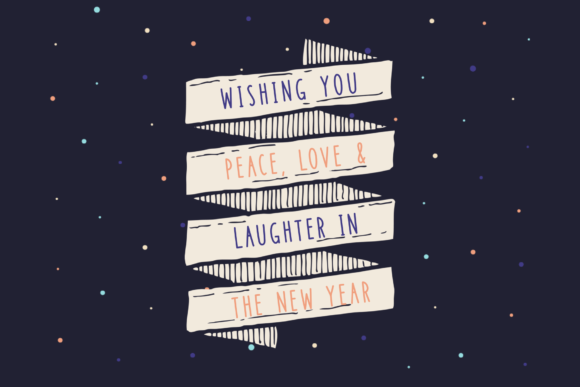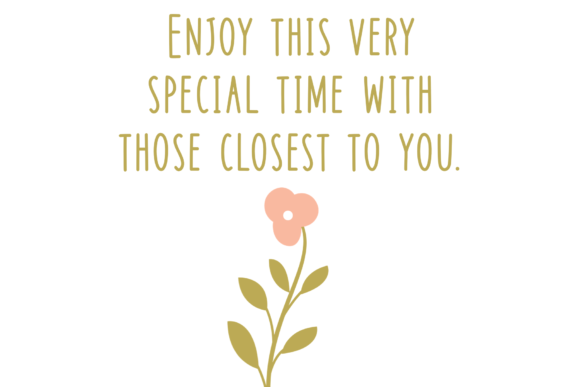
Happy Christmas Font
Happy Christmas is a thin-lettered handwritten font. You can use this font in various projects and in any design such as invitations, greeting cards, planners, photo albums, decorations and much more.